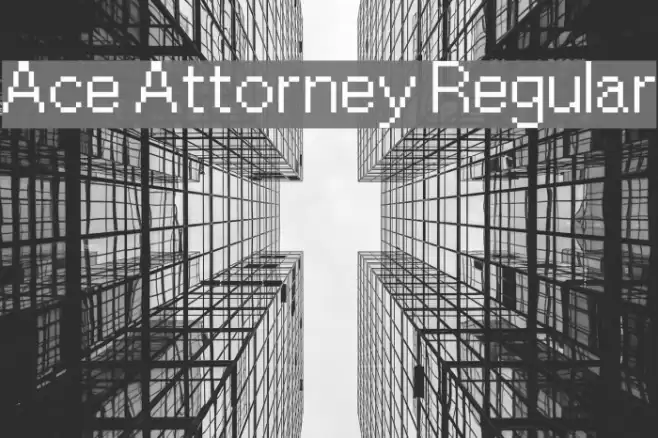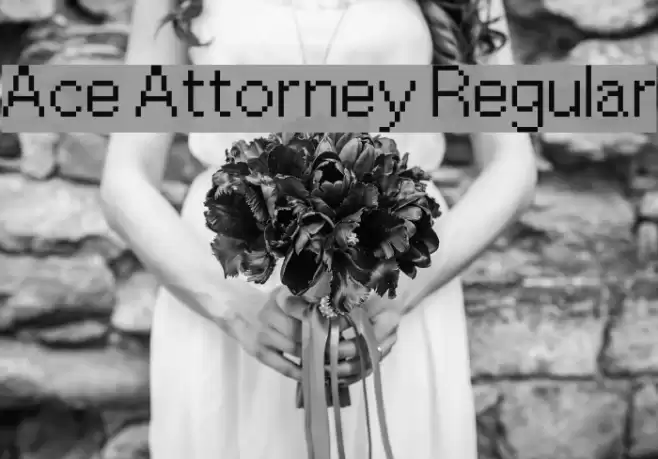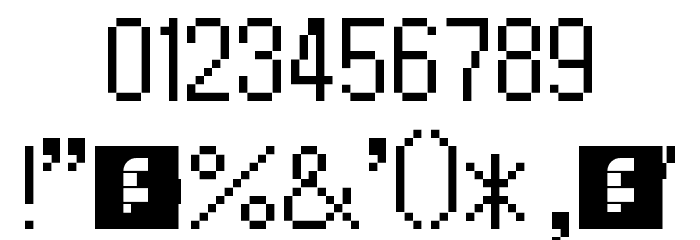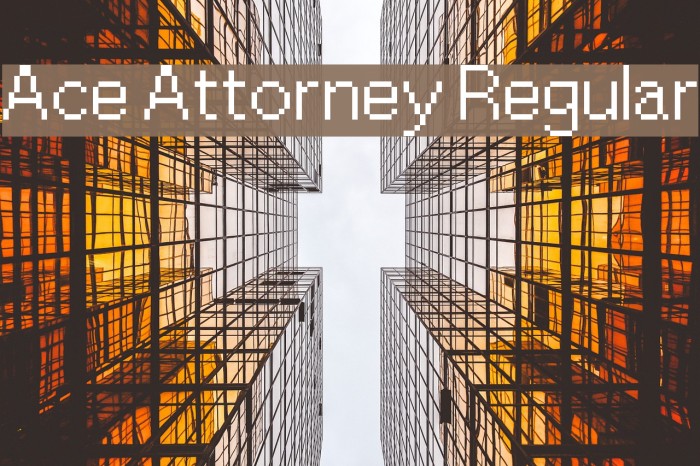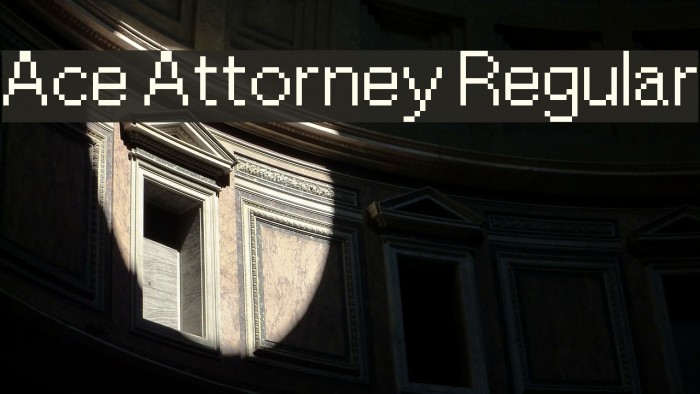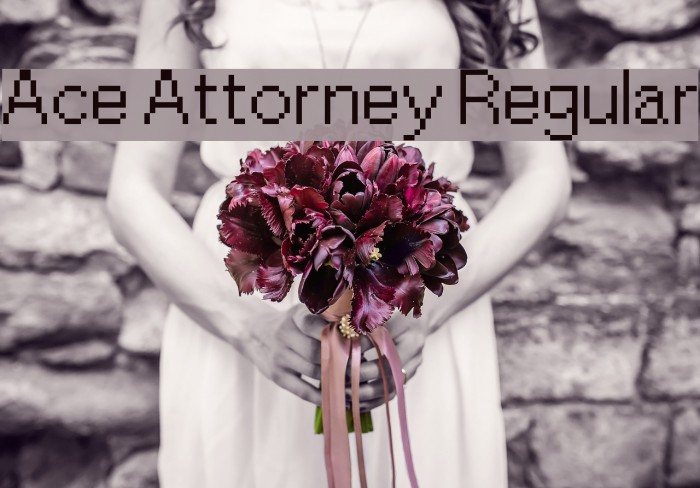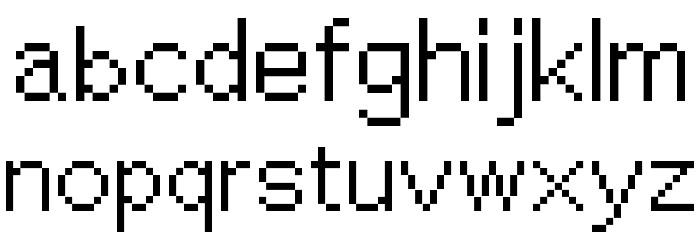
Ace Attorney Regular Font
Ace Attorney Regular Description
This font features a pixelated, monospaced design reminiscent of classic video game text. Each character is constructed with a grid-like precision, giving it a retro, digital appearance. The uppercase and lowercase letters maintain a consistent height and width, contributing to its uniformity. Numbers and special characters follow the same pixelated style, ensuring a cohesive look across all glyphs. The font's simplicity and clarity make it ideal for digital displays or projects that aim to evoke a sense of nostalgia for early computing or gaming eras.
A pixelated, monospaced font with a retro digital style from Uncategorized fonts.
- Proposed Projects: Ideal for retro video games, digital art projects, or any design requiring a nostalgic, pixelated aesthetic.
- Overall Style: Vintage
- Use Case: Digital displays, Retro games, Nostalgic designs